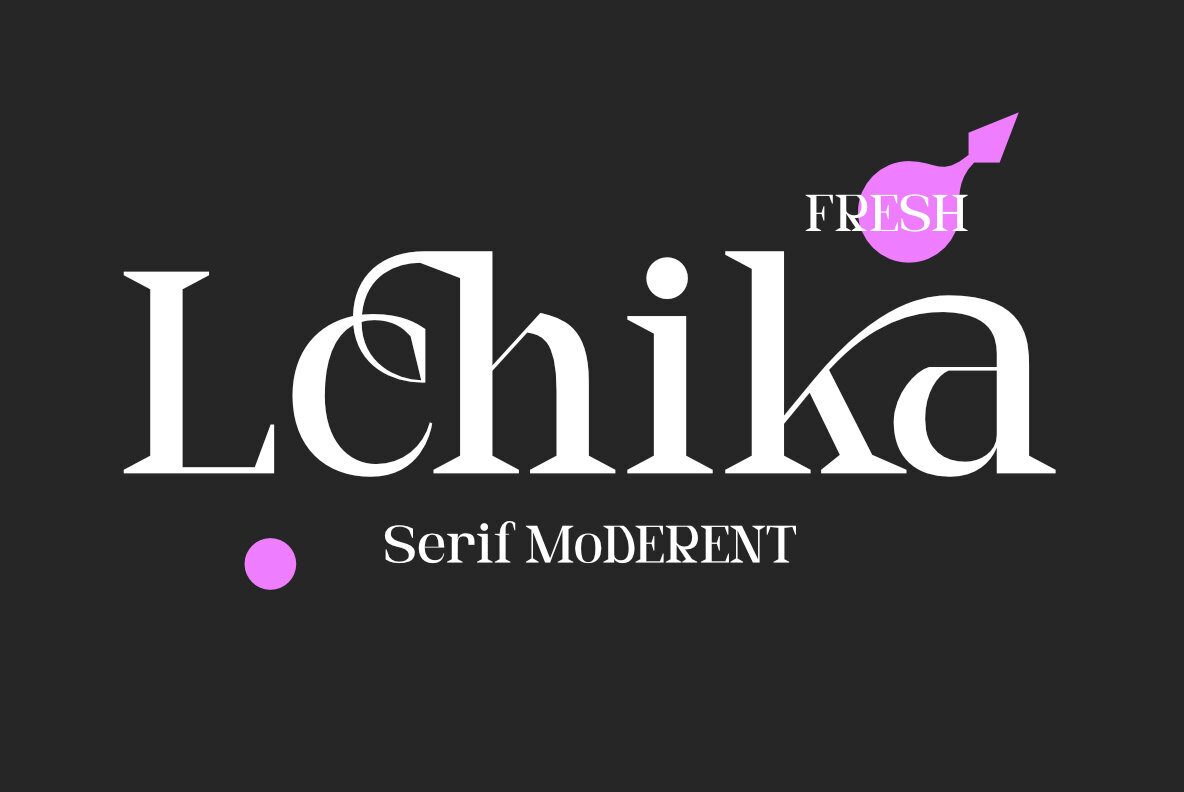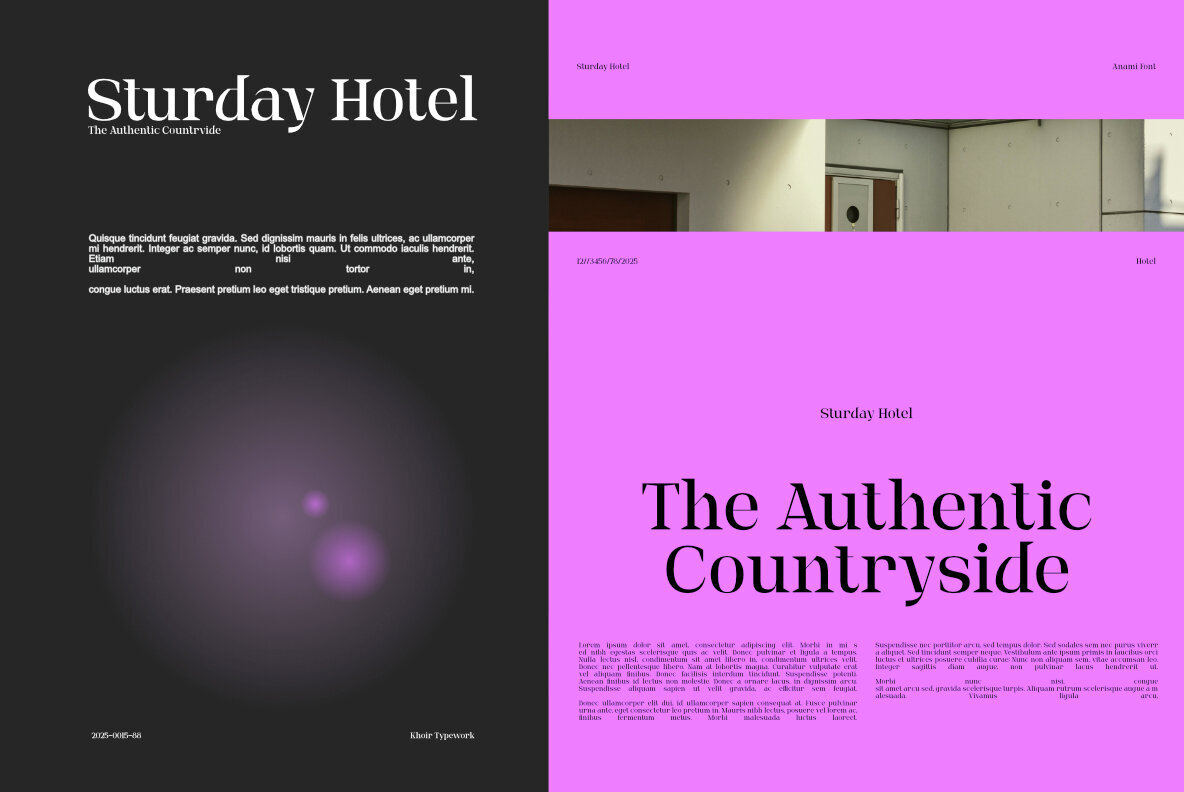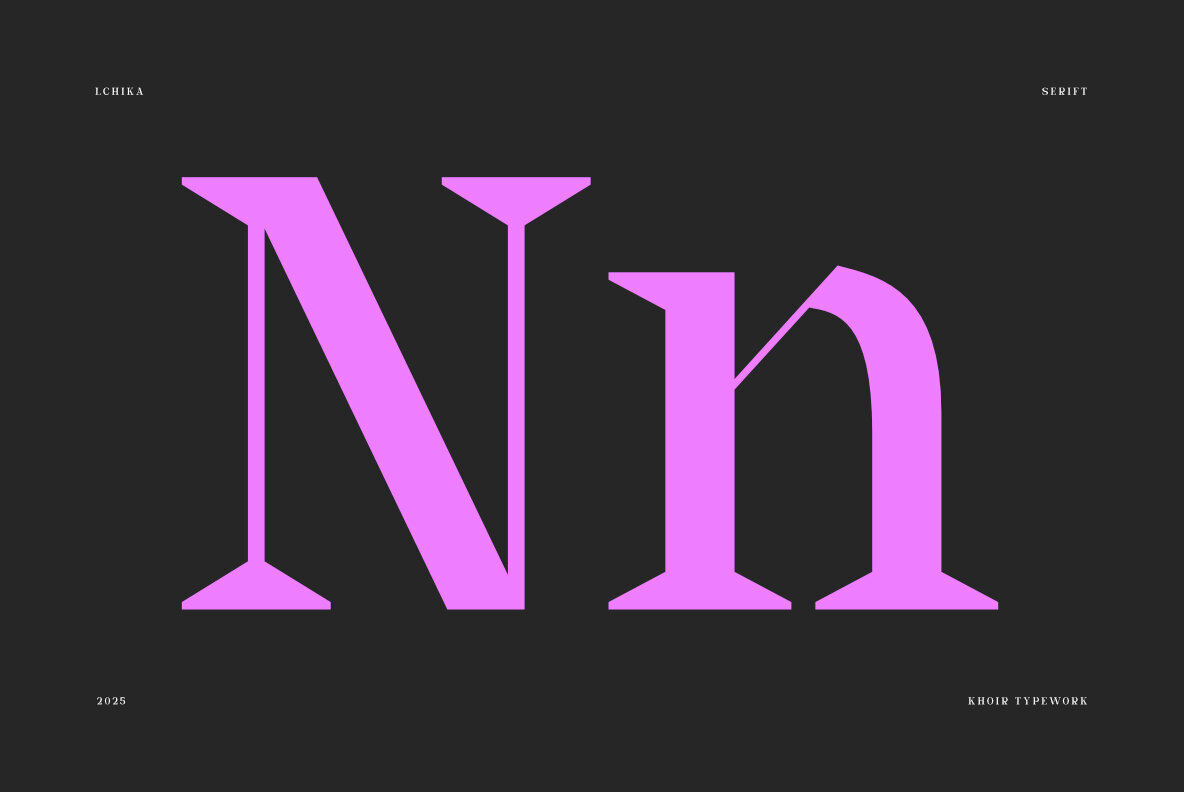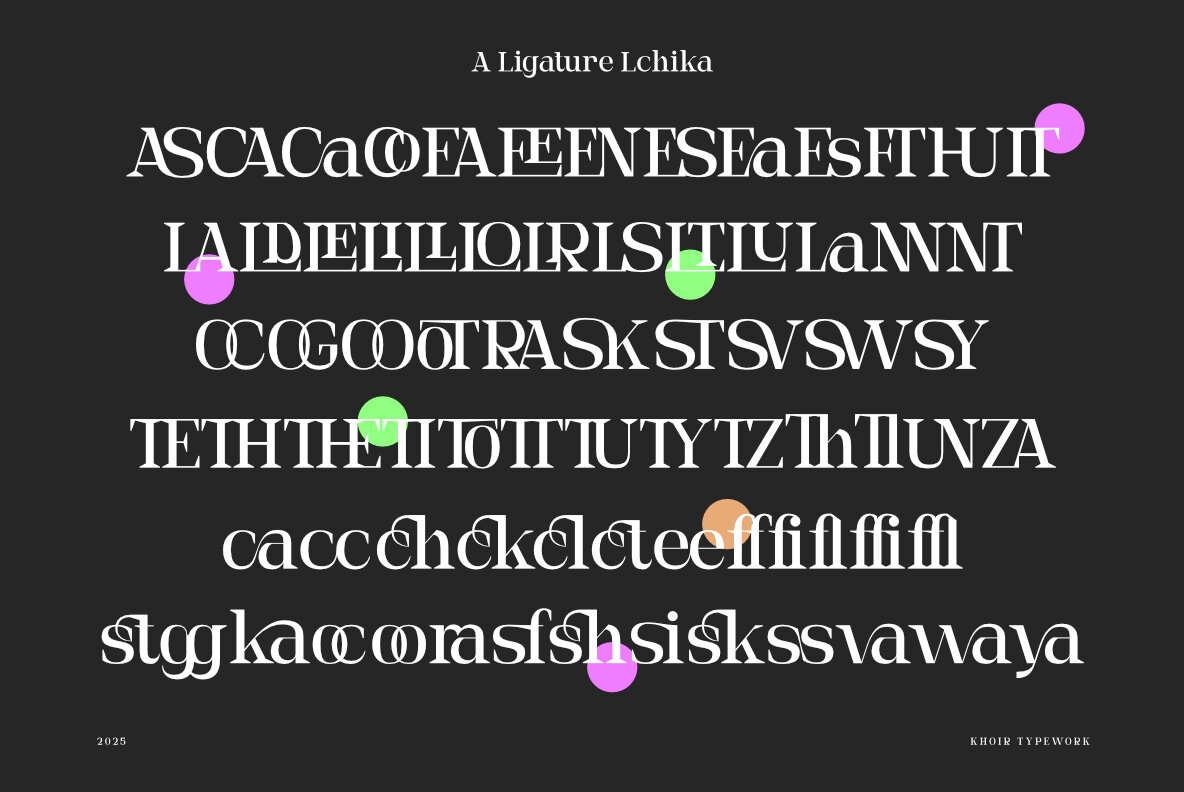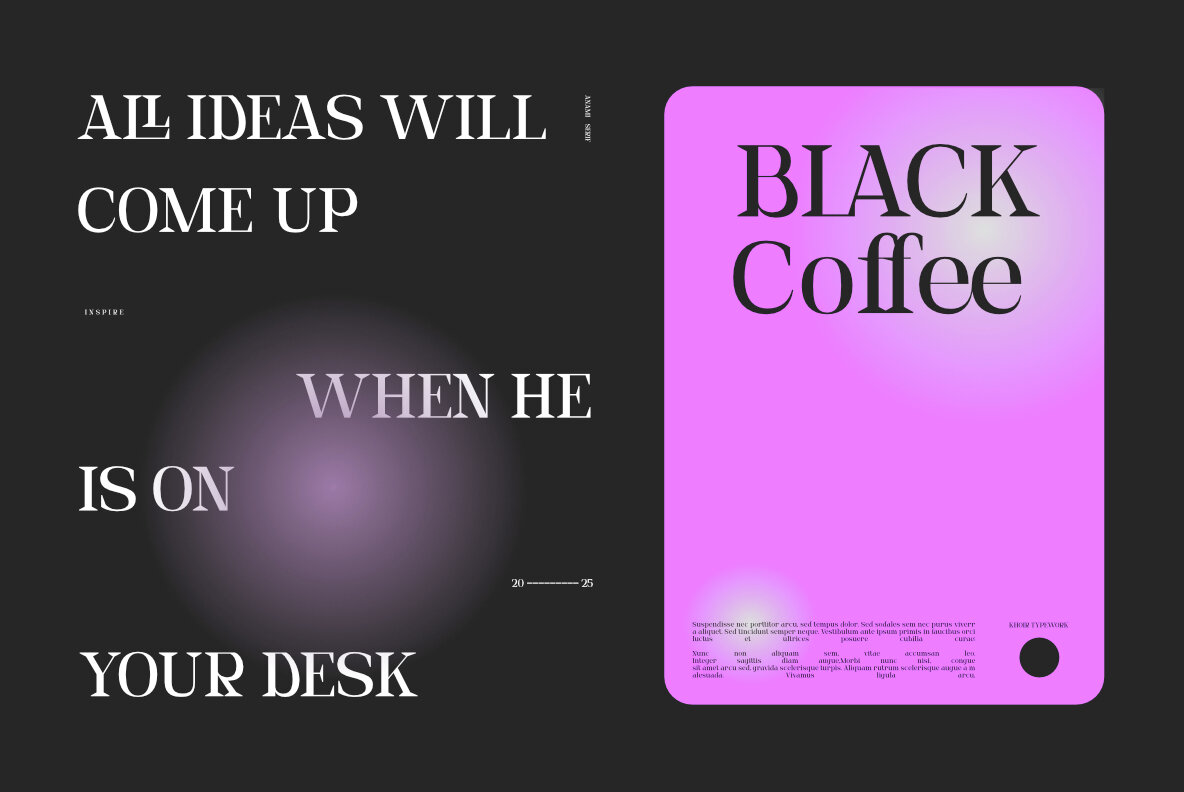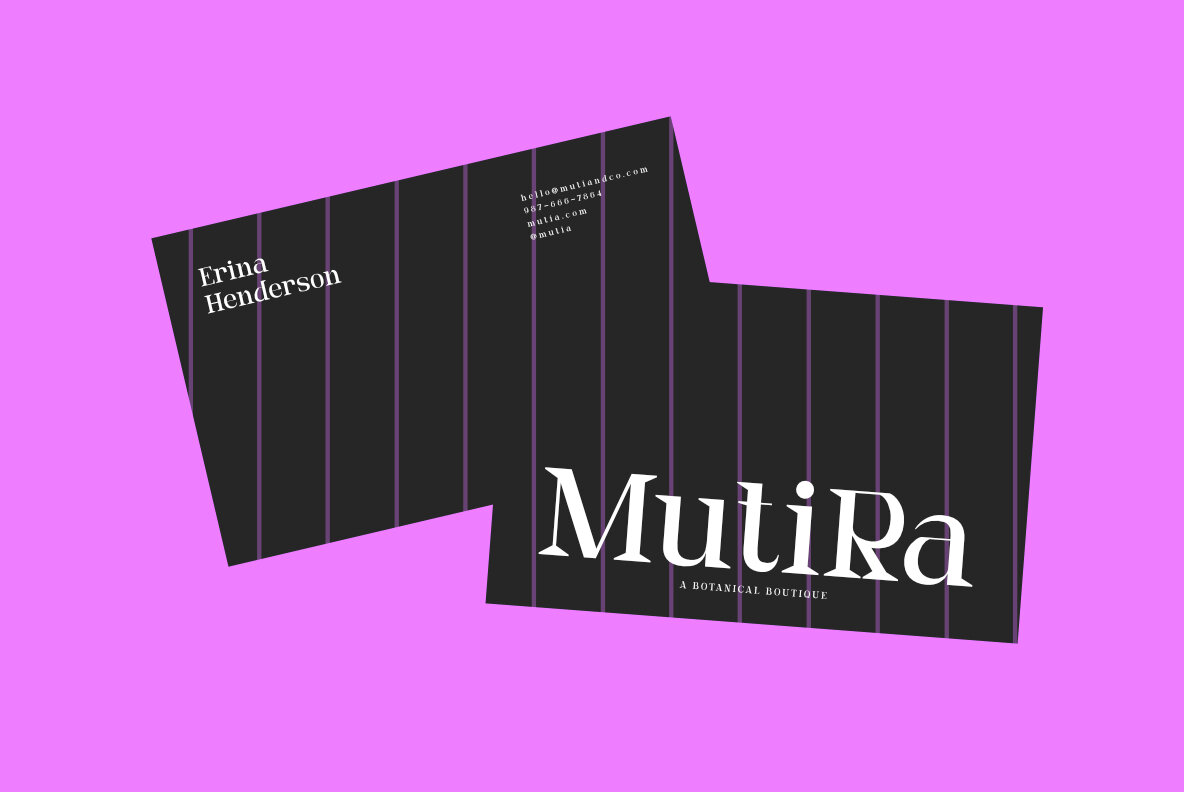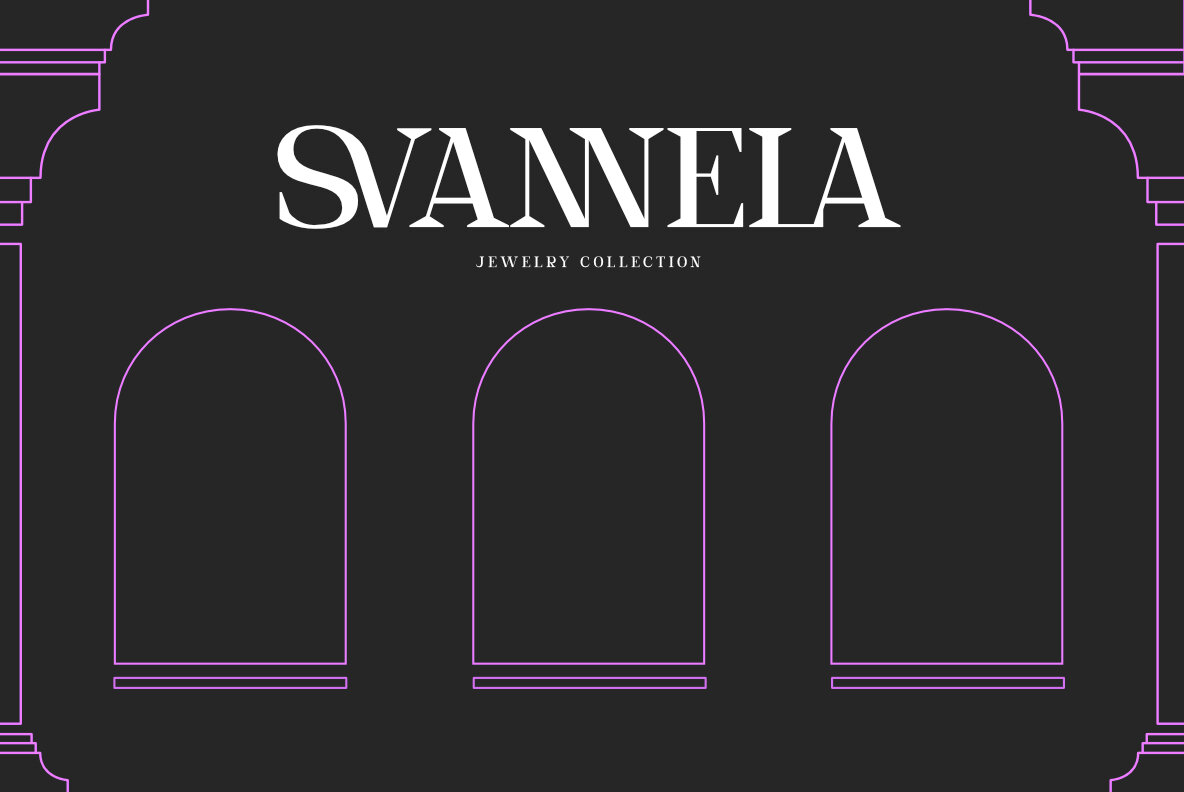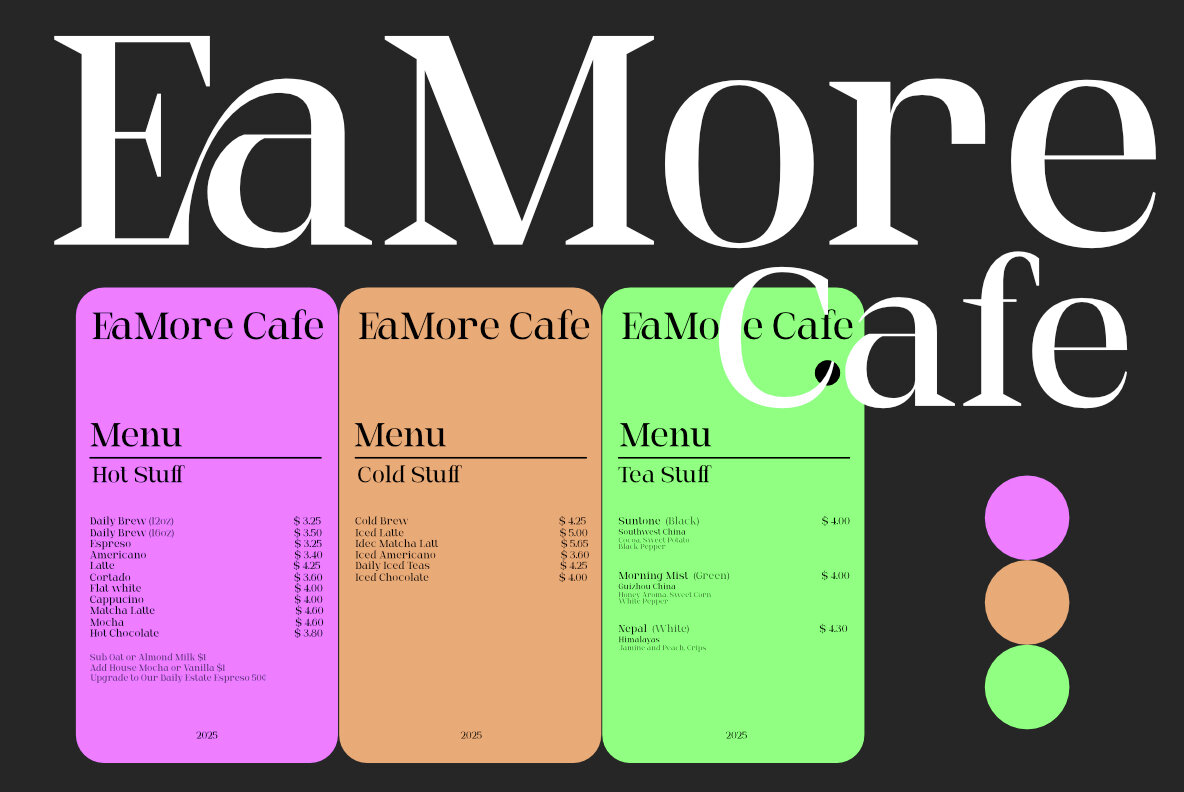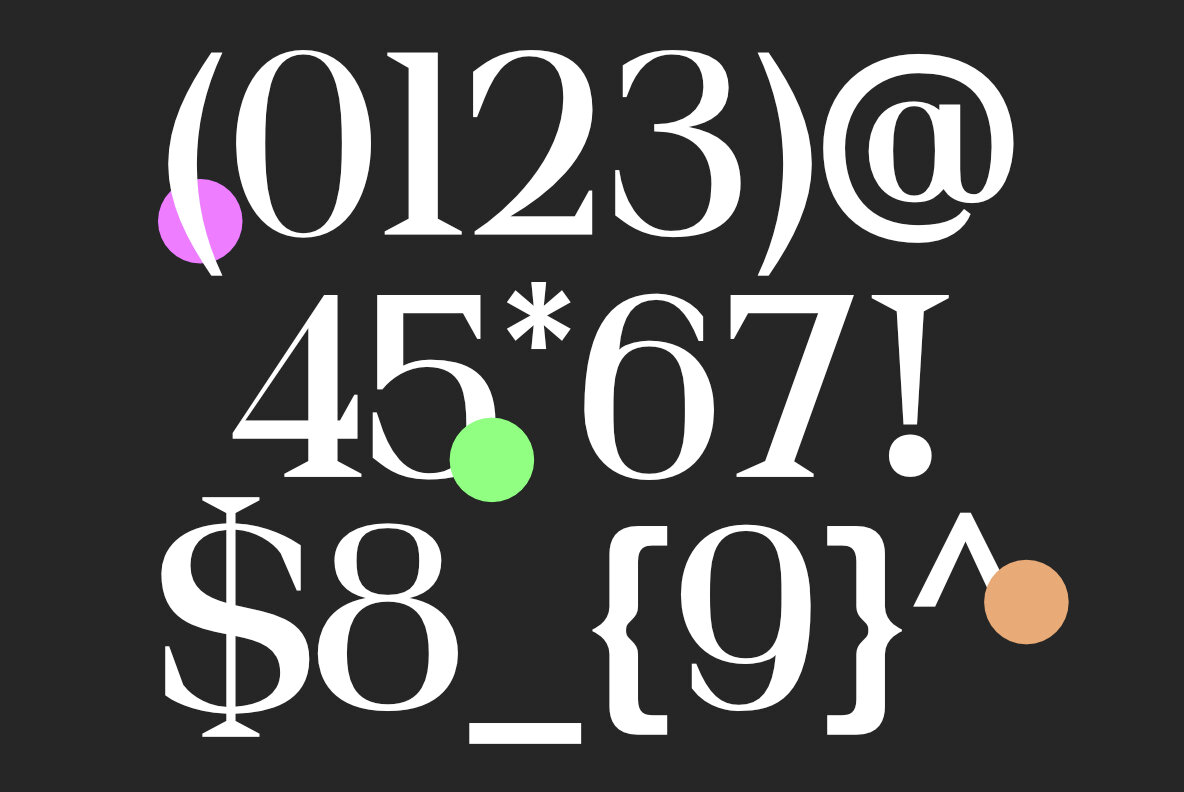
Lchika Font
Lchika Regular
This modern serif font features a clean, light appearance that is both distinctive and elegant. Its array of ligatures adds to its appeal, making it highly adaptable for various design projects. It is ideal for posters, logos, branding, social media, books, and magazines.Modern Serif Font: Elegance and Versatility